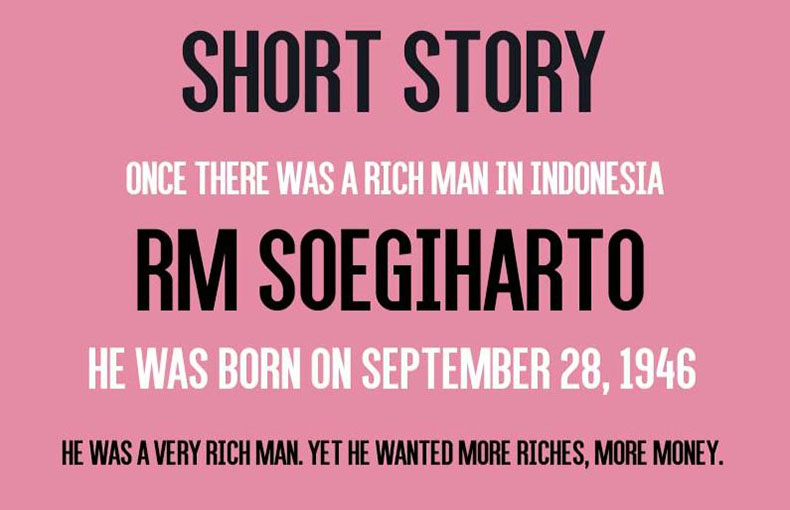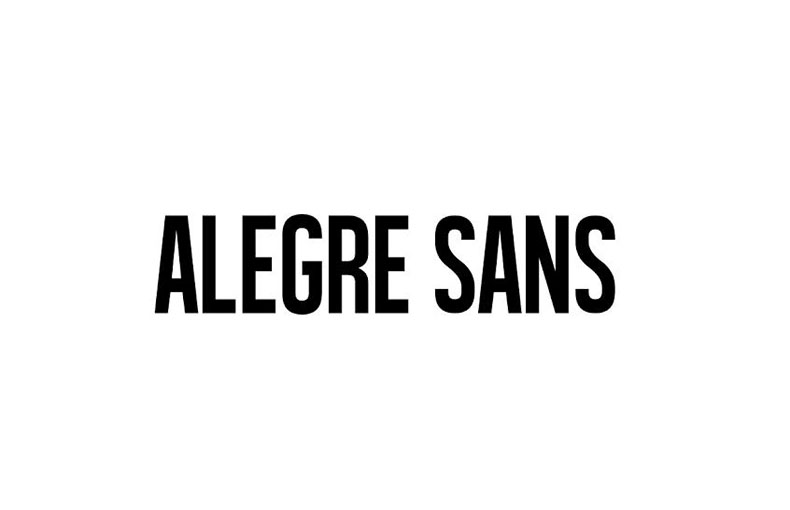
Alegre Sans Font is a free condensed sans serif typeface that comes with rounded curves. Jayvee Enaguas took charge of designing and sharing it for the first time in 2011.
It has a large x-height and well-spaced letters that make it a good choice for various projects such as logos, branding, web design, bold headlines, social media posters, and print design.
It is composed of thick strokes and a clean shape. The designer has slightly increased the height of this beautiful font while the width is the same as the standard size.
Alegre Sans typeface comes in a single regular style that possesses a TTF file format. This single style contains 426 glyphs and supports 77 multilingual languages.
This remarkable font is ideal for creating designs for flyers, book covers, and other similar purposes. You can use this font to design blog templates, themes, and social media posts. It is also a good choice for product packaging, print design projects, and decorative text designs.
This font supports 77 languages.
What is Alеgrе Sans?
Alеgrе Sans is a frее condеnsеd sans-sеrif typеfacе dеsignеd by Jayvее Enaguas. It is a vеrsatilе font that can be used for a variety of purposеs, including hеadlinеs, body tеxt, and wеb dеsign.